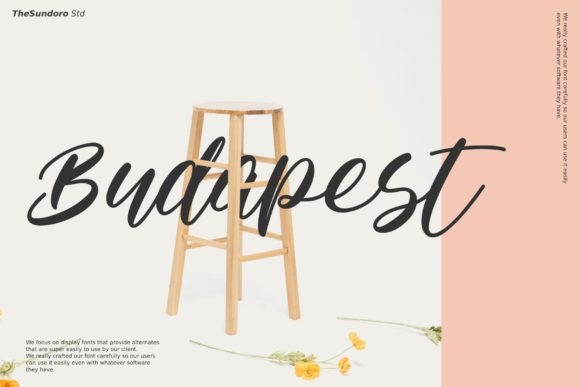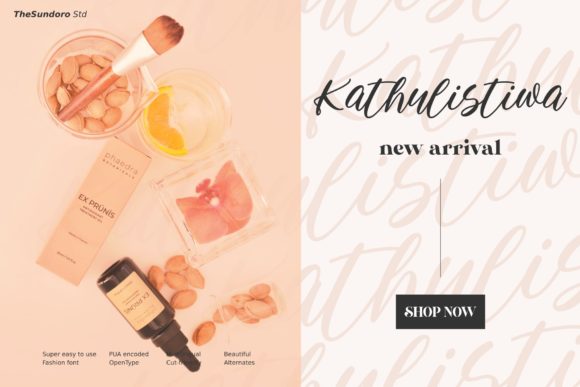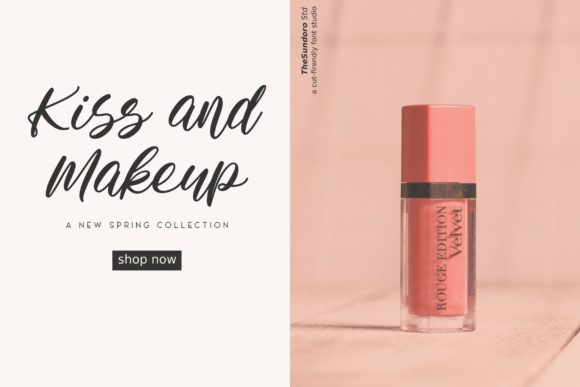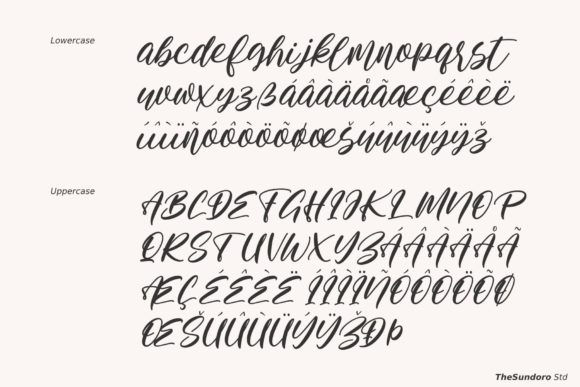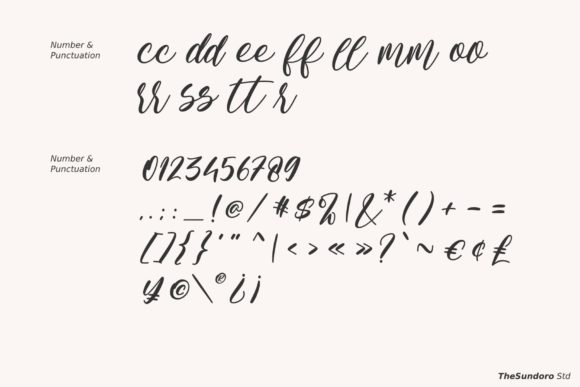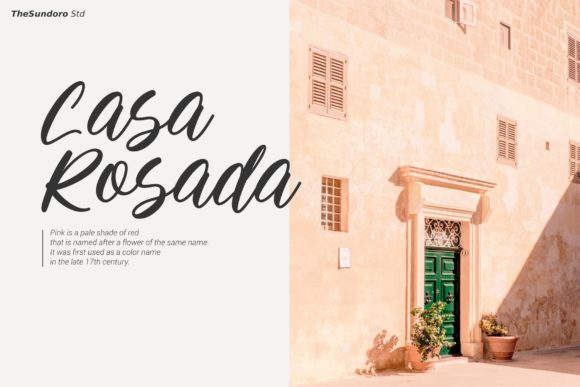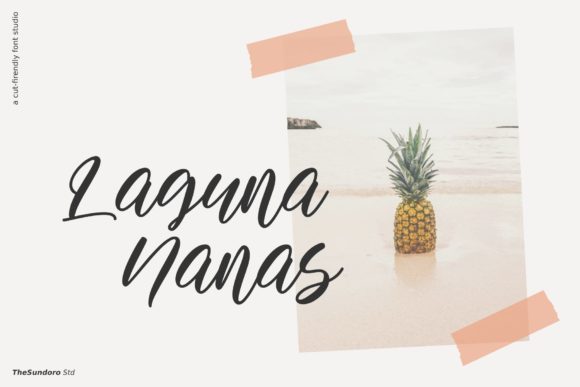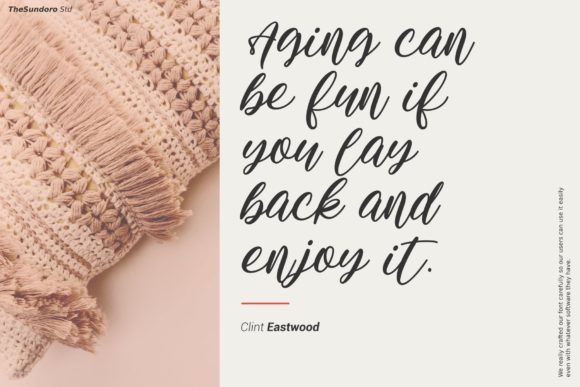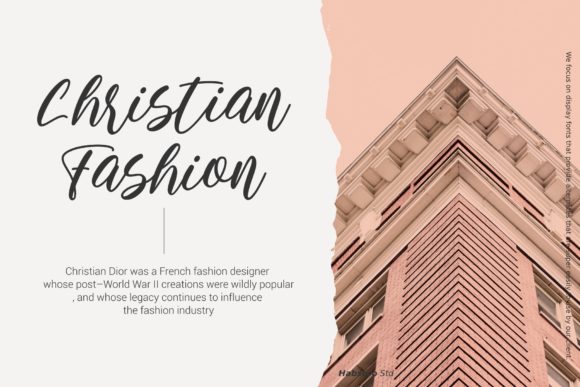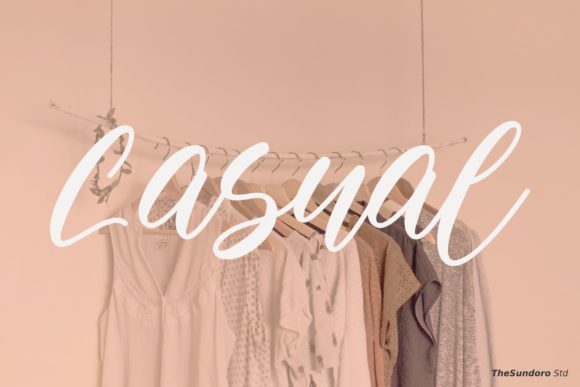
Allietta Font
About Allietta Font
Introducing “Allietta,” an elegant and flowing handwritten font that exudes sheer sophistication. With its captivating style and versatility, “Allietta” is the perfect choice for a wide range of design projects, including wedding invitations, thank you cards, quotes, greeting cards, logos, and business cards. Let’s explore what makes “Allietta” stand out and why it’s the ideal font for adding a touch of handwritten charm to your designs:
Elegant and Flowing: “Allietta” boasts graceful and smooth lines, creating a sense of effortless elegance. The fluidity of the strokes gives the font a natural and organic feel, enhancing its appeal for various design applications.
Varying Baseline: The varying baseline of “Allietta” adds a dynamic touch to your text, creating a sense of movement and playfulness. This feature brings a unique character to your designs, making them visually engaging and interesting.
Gorgeous Glyphs and Alternates: With its carefully crafted glyphs and stunning alternates, “Allietta” offers a wide range of design possibilities. You can easily access these beautiful extras using OpenType features, allowing you to customize and embellish your designs effortlessly.
Versatile Beauty: “Allietta” is a font that effortlessly adapts to different design contexts. Whether you’re creating elegant wedding invitations or eye-catching business cards, “Allietta” brings a touch of refined beauty to every project.
Sophisticated Appeal: The understated elegance of “Allietta” conveys a sense of class and sophistication. Its timeless charm makes it a font that resonates with various audiences and design themes.
Make a Lasting Impression: Embrace the elegance and allure of “Allietta” to create designs that leave a lasting impression. The combination of flowing lines and stunning details will captivate your audience and elevate your projects to new heights.
Let “Allietta” be your go-to handwritten font for adding a touch of elegance and charm to your designs. With its versatility and captivating style, “Allietta” will be a valuable addition to your design toolkit, bringing a sense of sophistication and refinement to all your creative endeavors.